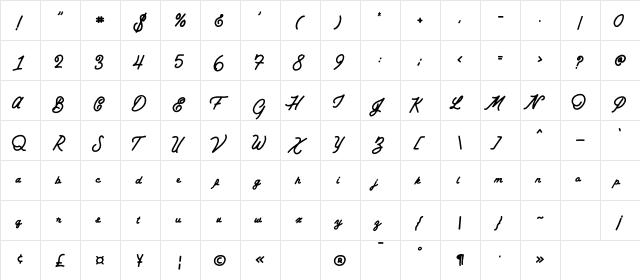
Batavia Script Clean Regular
| Foundry | Monocotype Studio |
| Designer | Abdurrahman Hanif |
Design Context for Batavia Script Clean Typeface
Batavia Script Clean brings a calligraphic fluidity to the page — its connecting strokes and expressive curves give it an unmistakably human quality.
Font Pairing: Combine Batavia Script Clean with a simple geometric sans for maximum contrast — the tension between flowing curves and clean structure is a classic typographic pairing.
Pro Tip: Use Batavia Script Clean for short runs of text — names, titles, or taglines. Extended body copy in script faces tires the eye quickly.